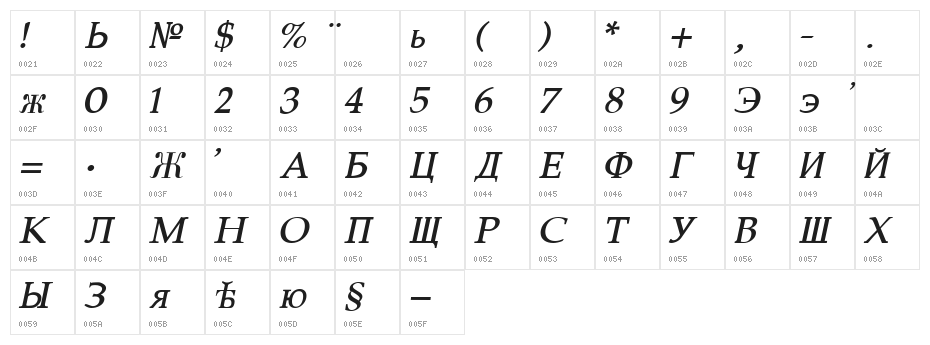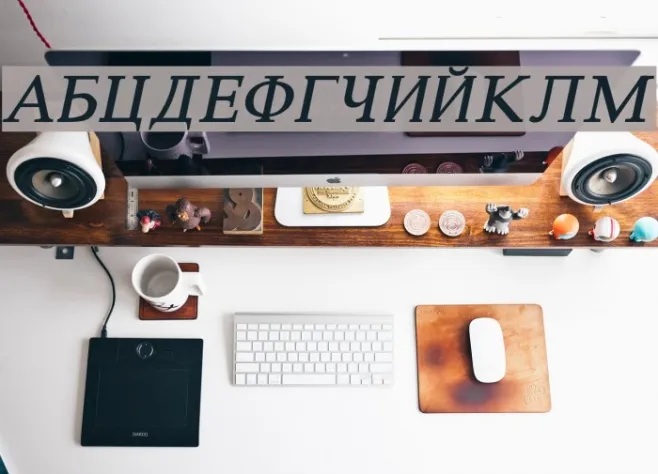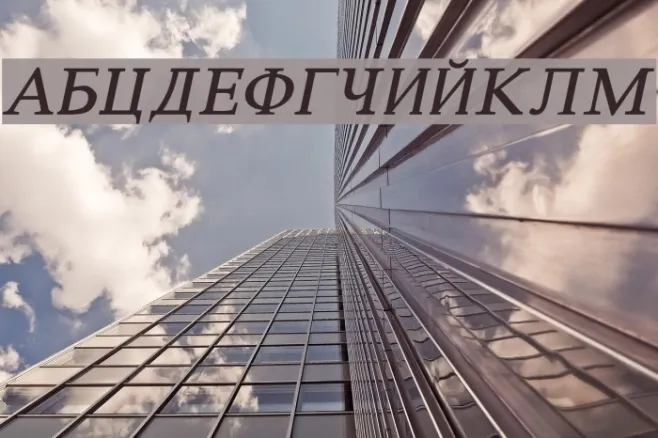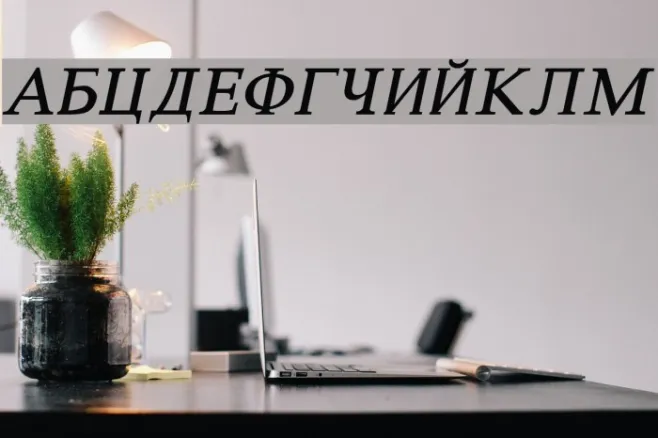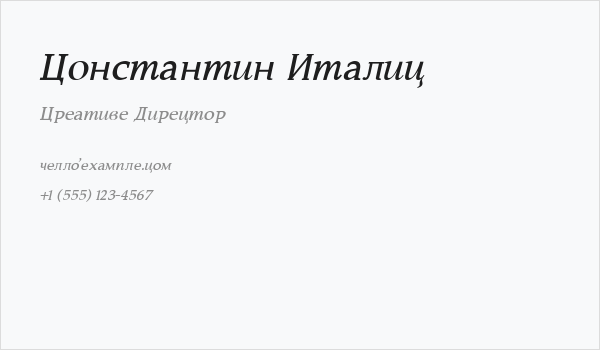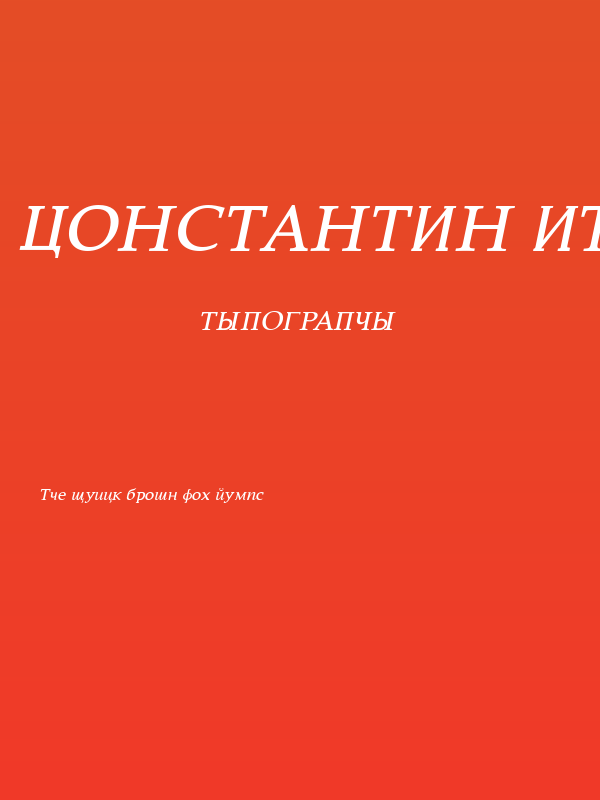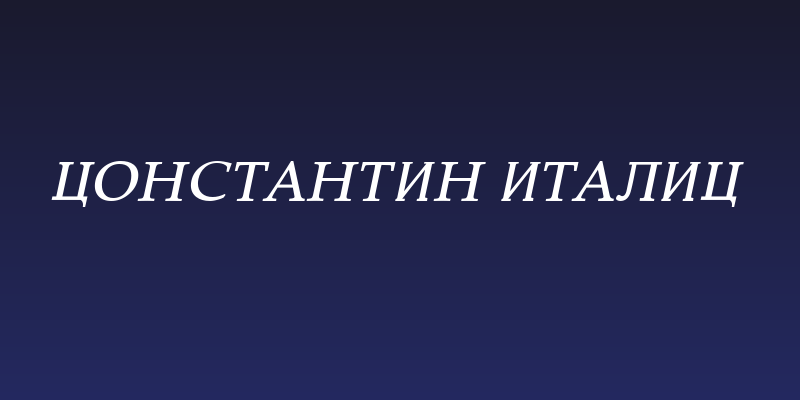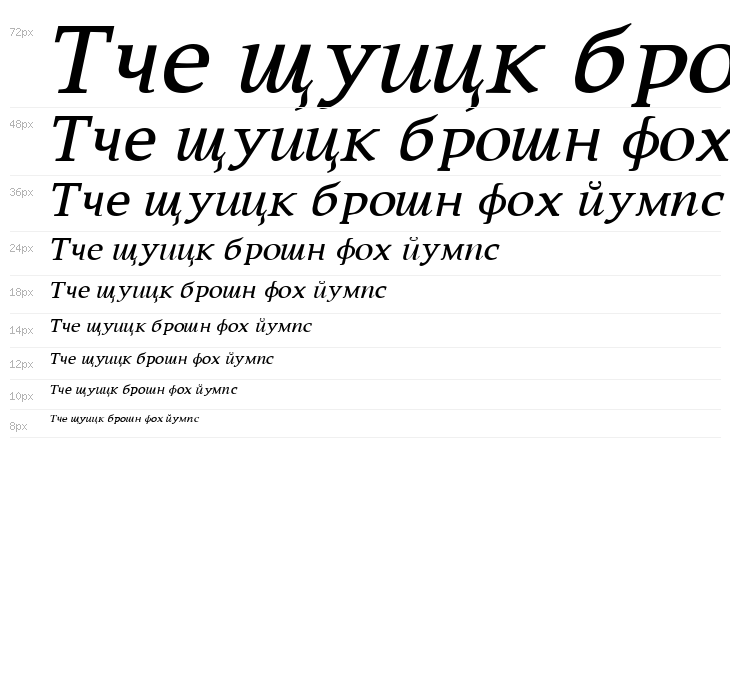
Constantin Italic Font
Constantin Italic Description
This font features a classic serif style with a distinct italic slant, giving it an elegant and sophisticated appearance. The characters are well-defined with sharp serifs and a moderate contrast between thick and thin strokes, enhancing readability while maintaining a stylish look. The uppercase and lowercase letters are proportionate, with a slight inclination that adds a dynamic flow to the text. The numerals are clear and consistent with the overall design, and the special characters are crafted to match the font's refined aesthetic. This typeface is suitable for projects that require a touch of elegance and formality.
| Proposed Projects | Ideal for formal invitations, book covers, editorial design, and branding projects that require a classic and sophisticated touch. |